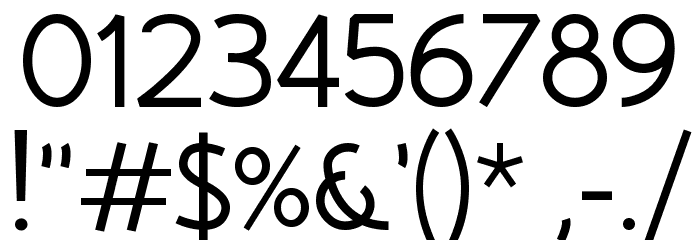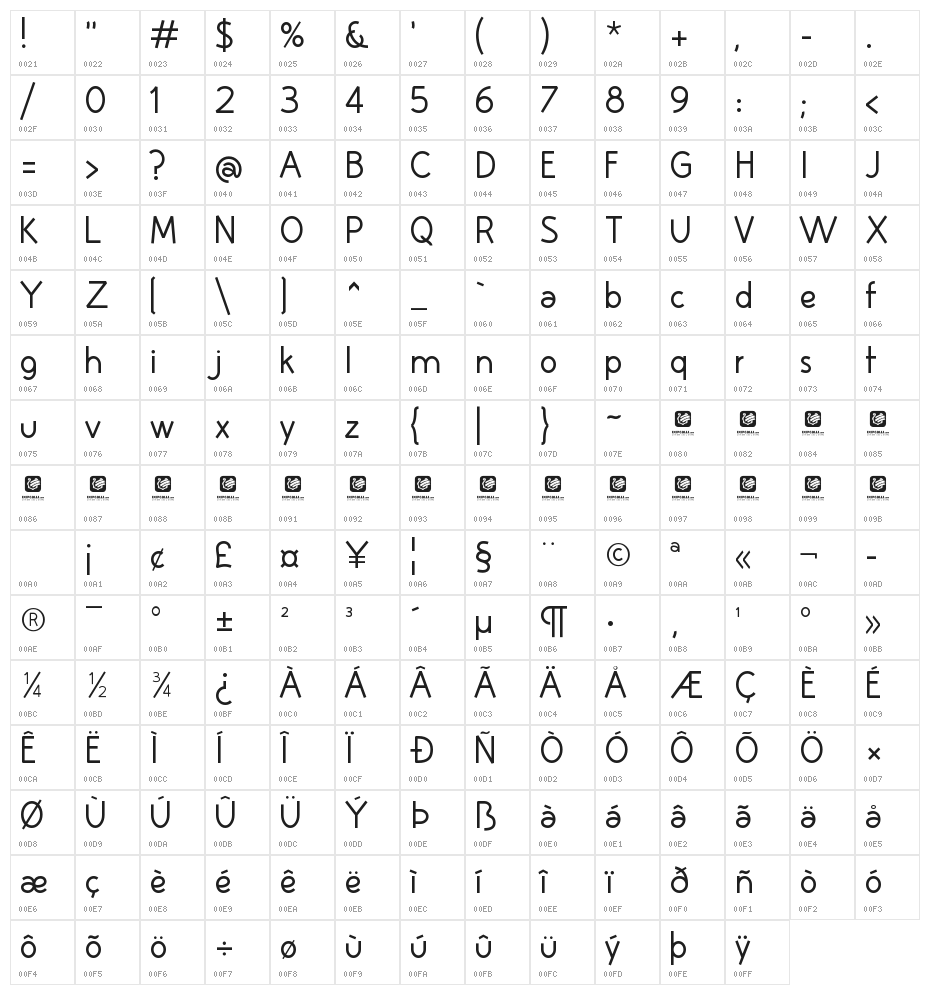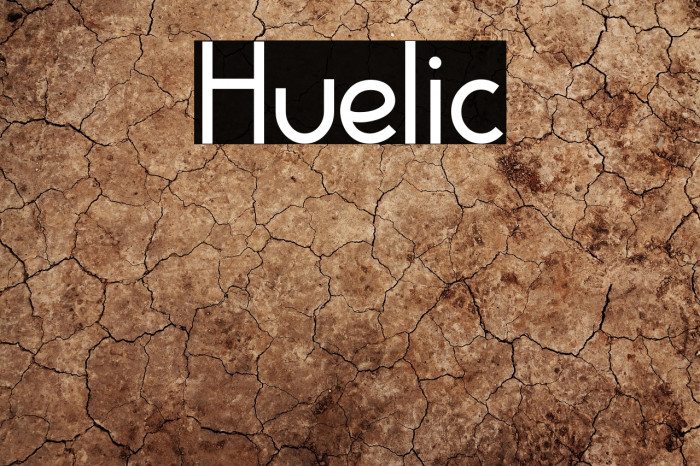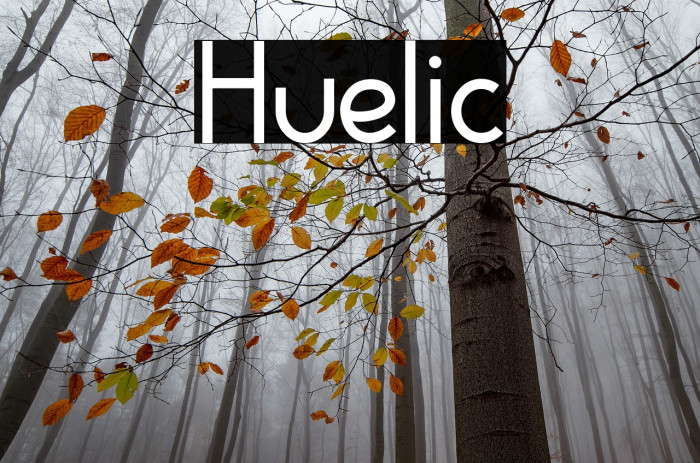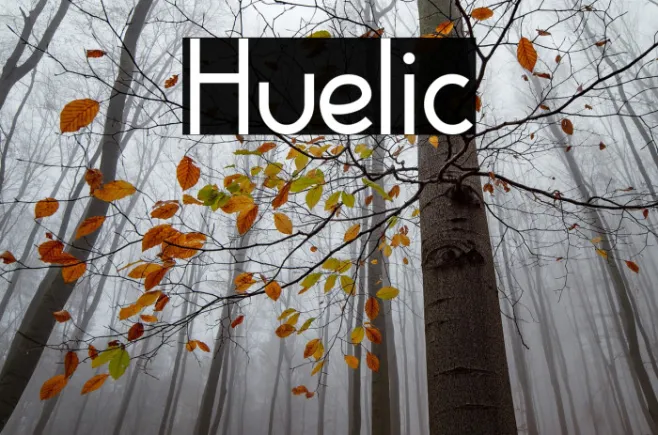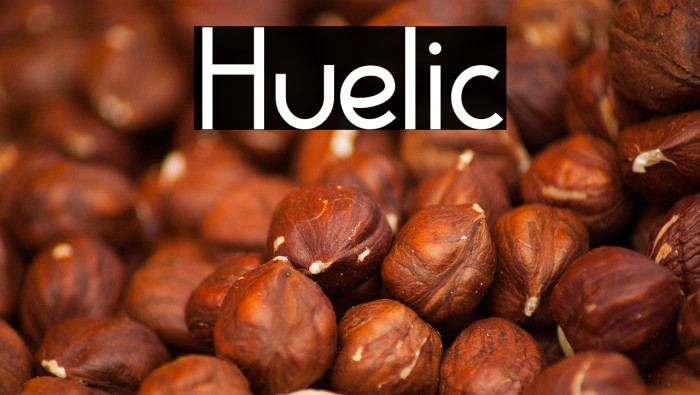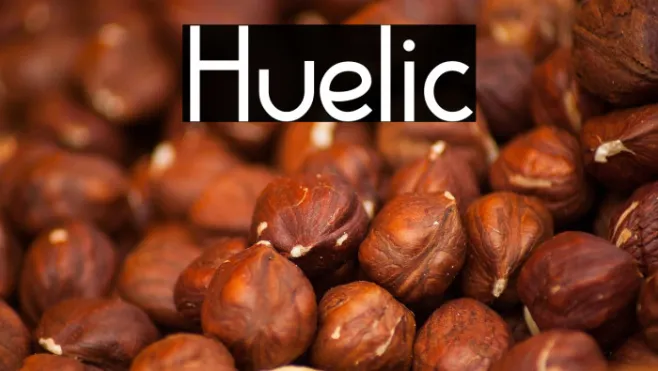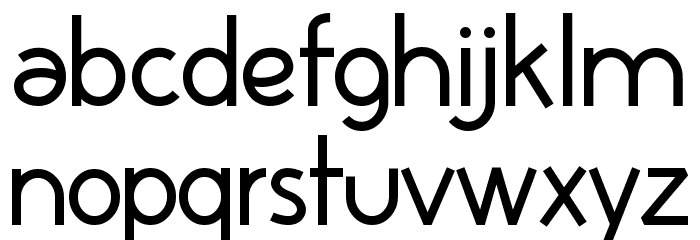
Huelic Font
Huelic Description
This font features a clean and modern sans-serif design with smooth curves and a uniform stroke width. The uppercase letters are bold and assertive, while the lowercase letters maintain a friendly and approachable feel. The numerals are clear and easy to read, making them suitable for a variety of applications. Special characters are well-defined, adding versatility to the font's use. The overall design is sleek and contemporary, making it ideal for digital and print media.
| Proposed Projects | Ideal for branding, web design, advertising, and editorial projects. |